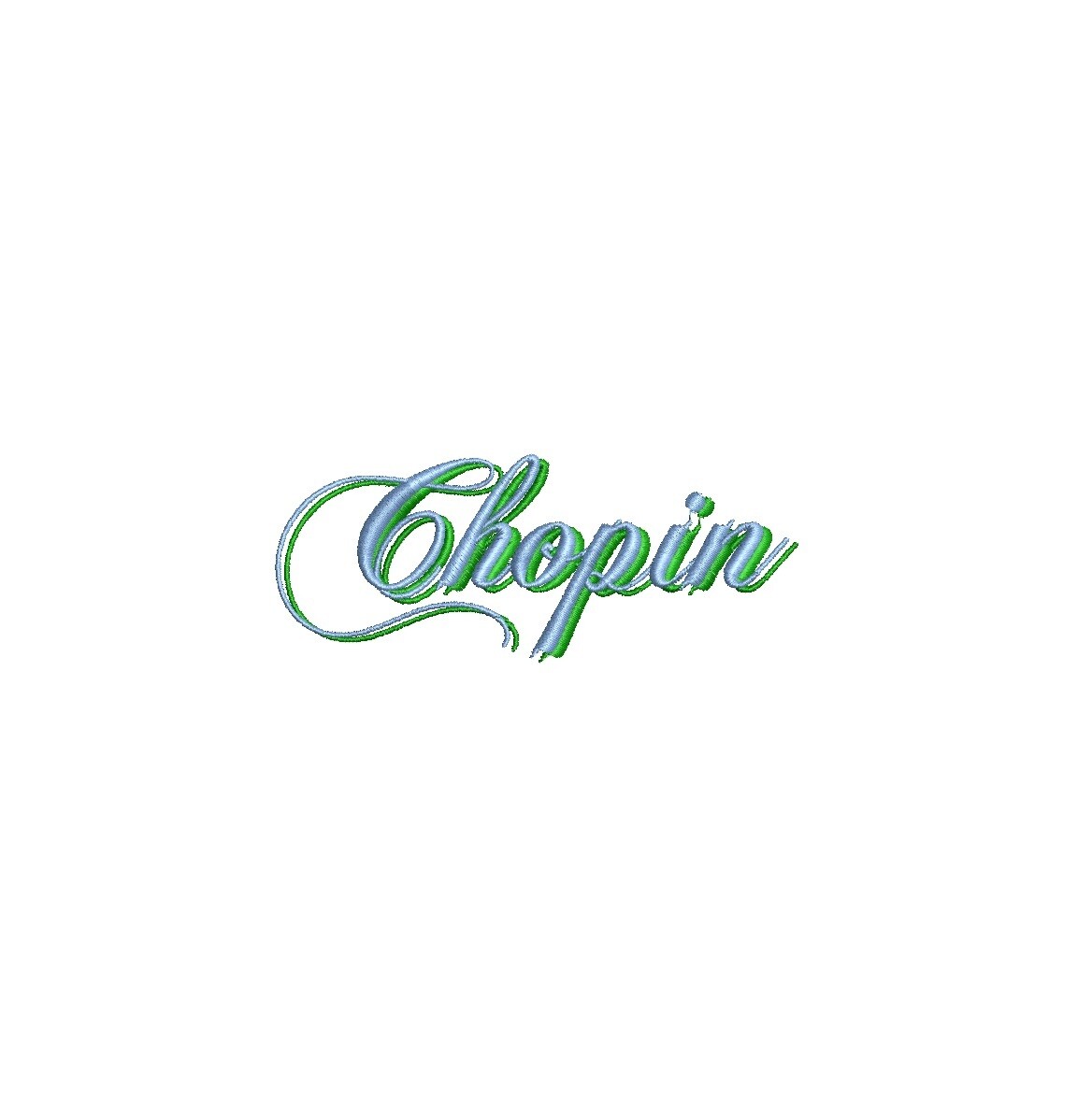
Elevate your designs with the enchanting Chopin Shadow ESA font. Fully compatible with Wilcom Studio e4.5.6 and Hatch 3 versions and up, this font infuses elegance and artistic flair into your projects. The delicate shadows and flowing lines of this font create a captivating visual impact that sets your designs apart. Streamline your creative process and achieve flawless results by utilizing this font with industry-leading software. Upgrade your projects with the compatibility of Chopin Shadow ESA font and craft visuals that leave a lasting impression. Embrace creativity and sophistication for your design journey today!